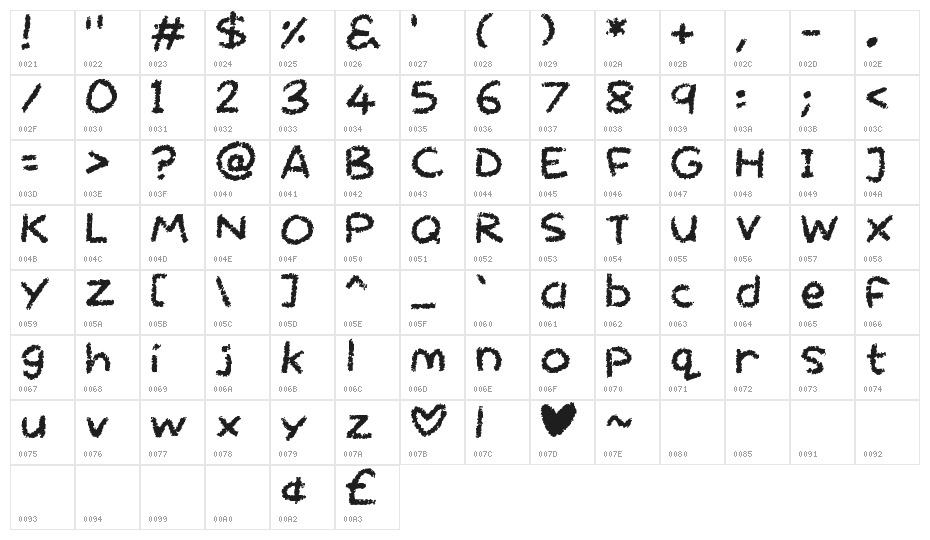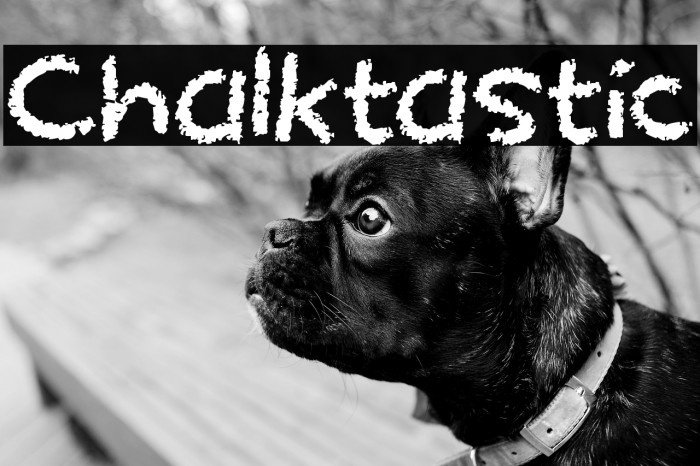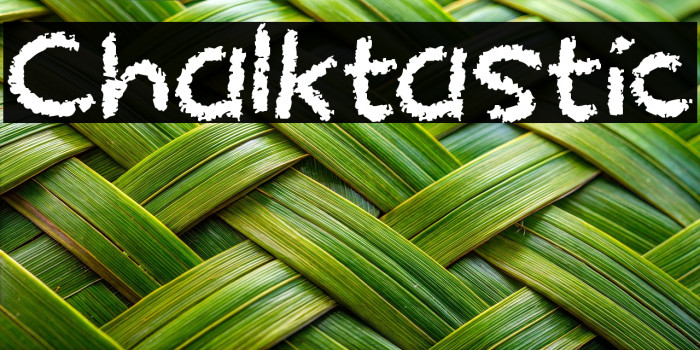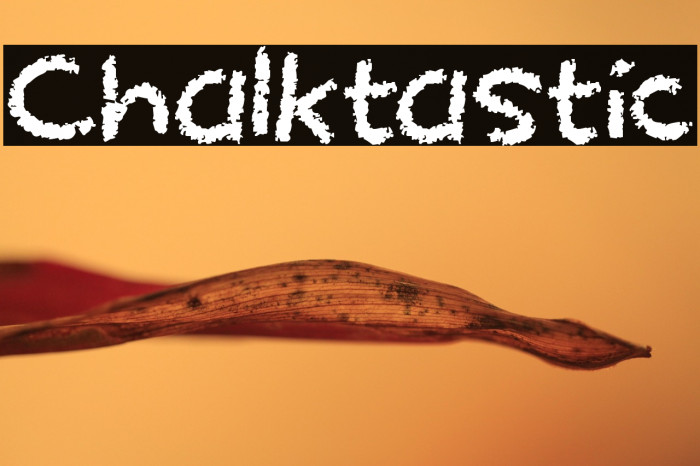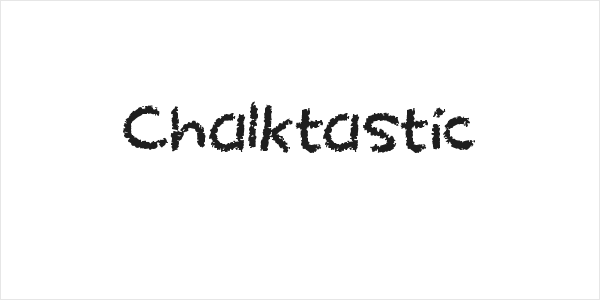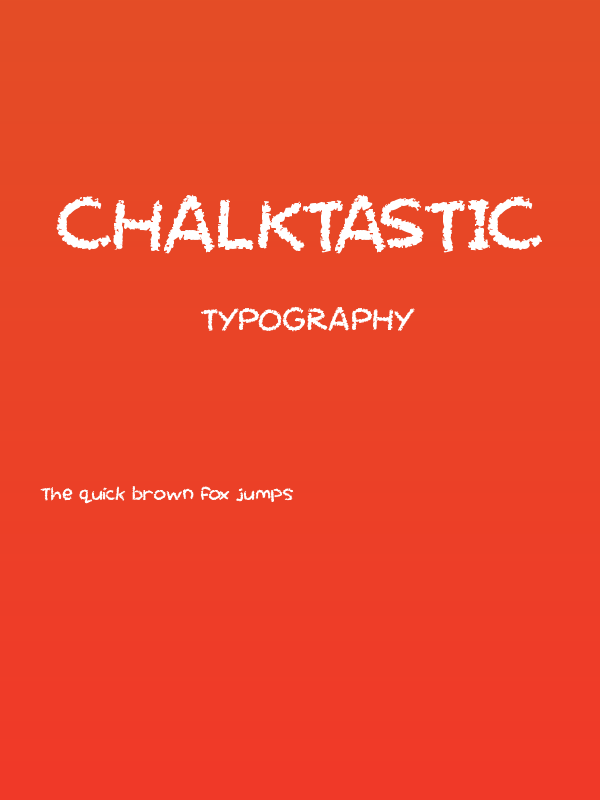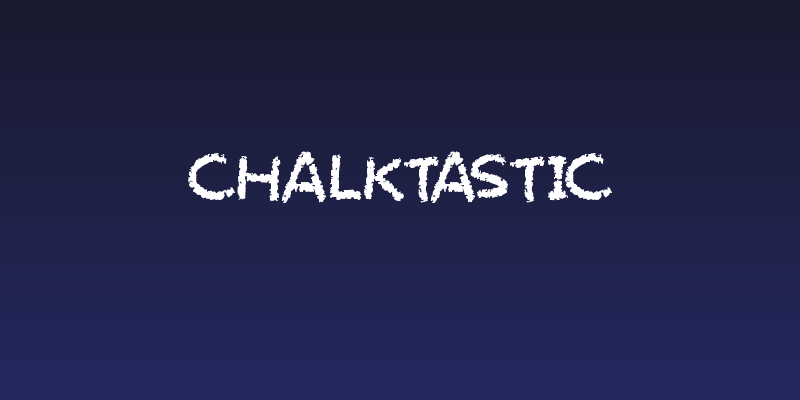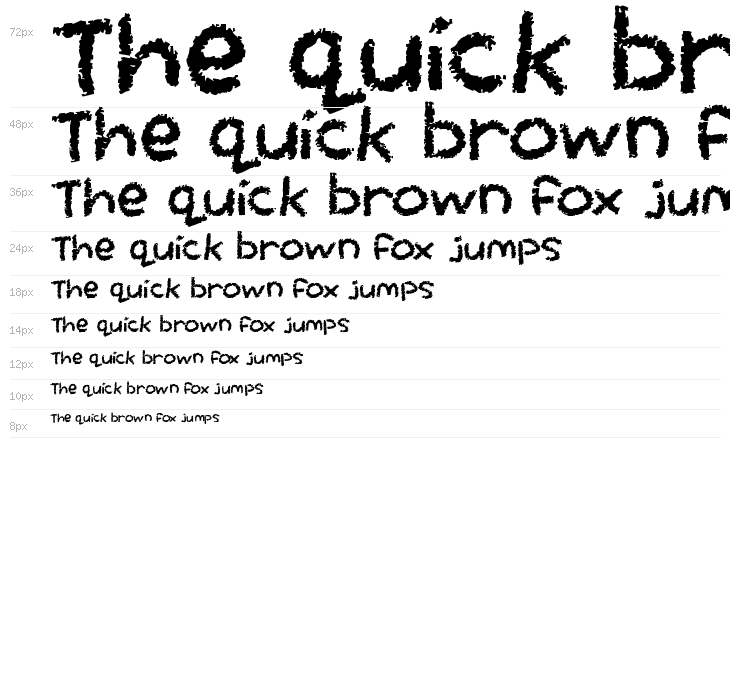
Chalktastic Font
Chalktastic Description
This font exudes a playful and informal vibe, reminiscent of chalk writing on a blackboard. The characters have a textured, rough edge that mimics the effect of chalk dust, giving it a tactile and authentic appearance. The uppercase and lowercase letters maintain a consistent style, with rounded edges and a slightly uneven baseline, enhancing its casual charm. Numbers and special characters follow the same design principles, ensuring a cohesive look across all glyphs. This font is perfect for projects that require a fun, approachable, and hand-drawn aesthetic.
| Overall Style | Casual, Playful |
| Use Case | Headlines, Posters, Craft projects |
| Proposed Projects | Ideal for educational materials, children's book covers, playful branding, and DIY craft projects. |